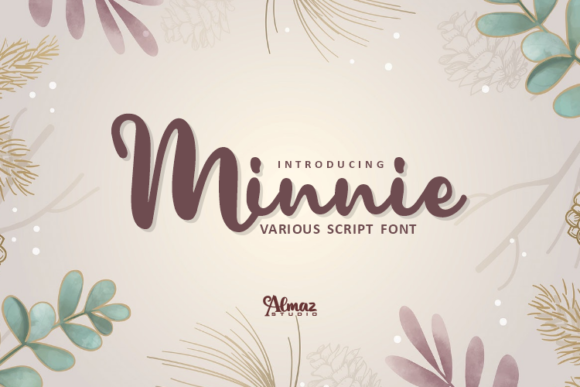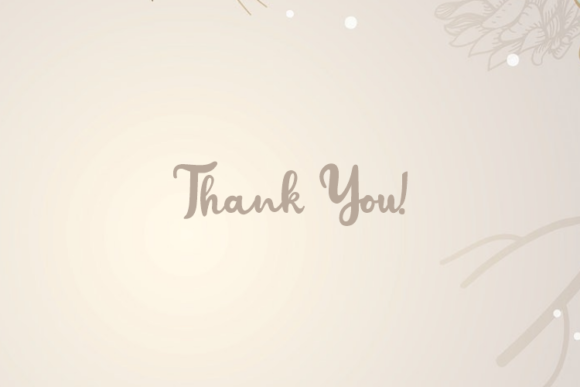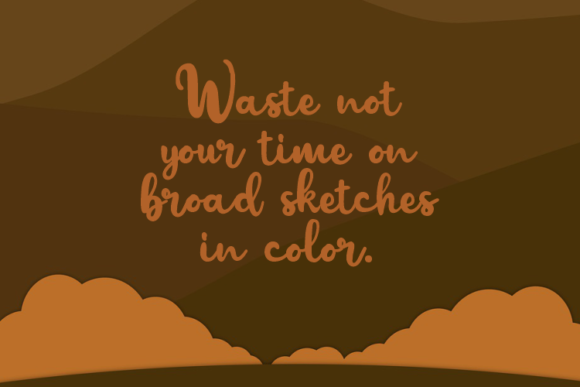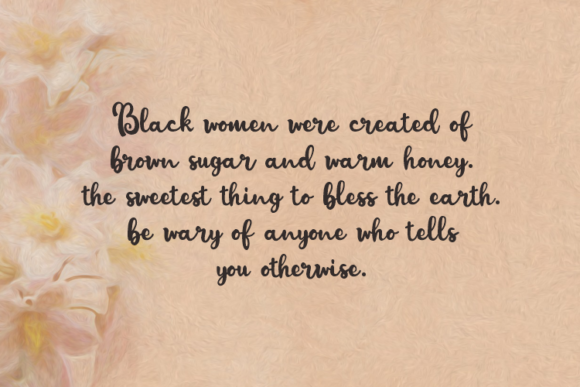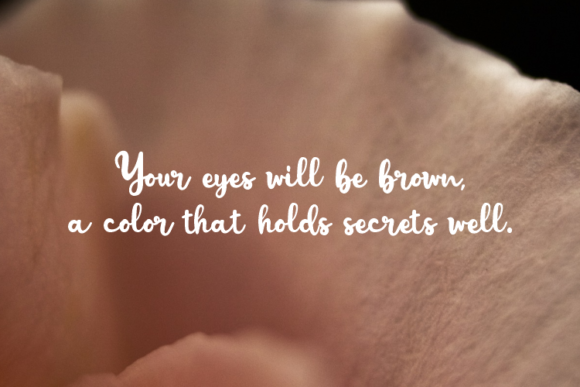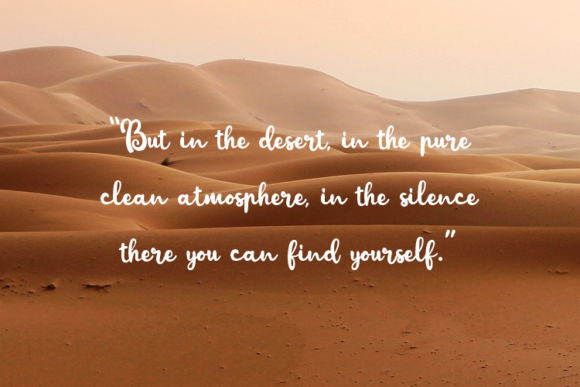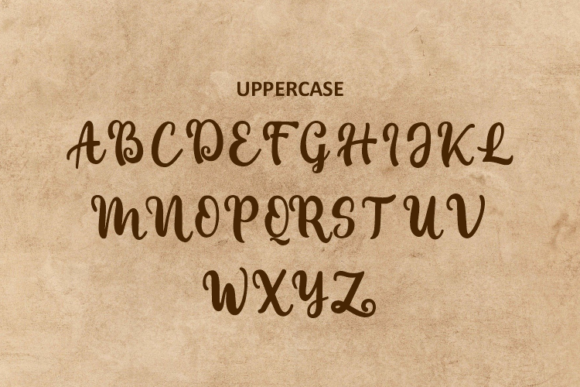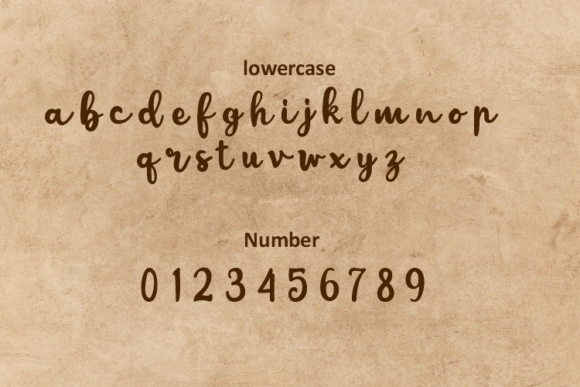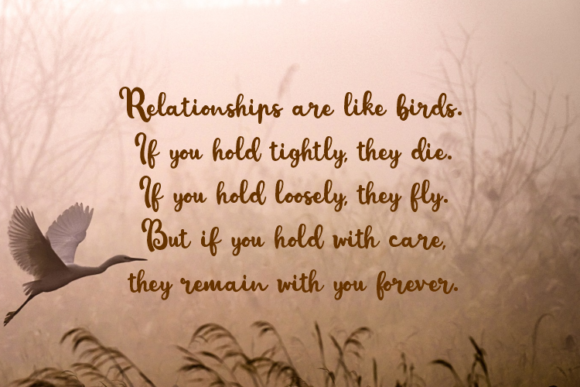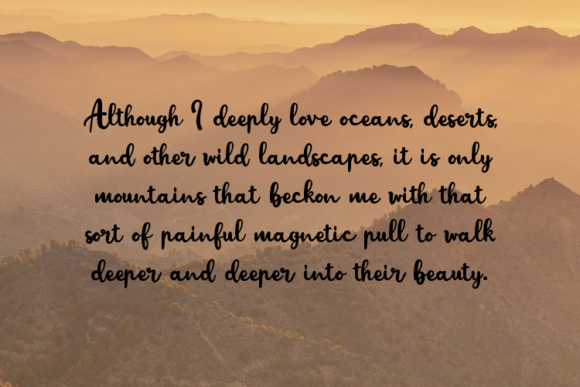
Minnie Font
About Minnie Font
Minnie is a unique and elegant handwritten font. It looks beautiful on a variety of designs requiring a personalized style, such as wedding invitations, thank you cards, weddings, greeting cards, logos and so on.